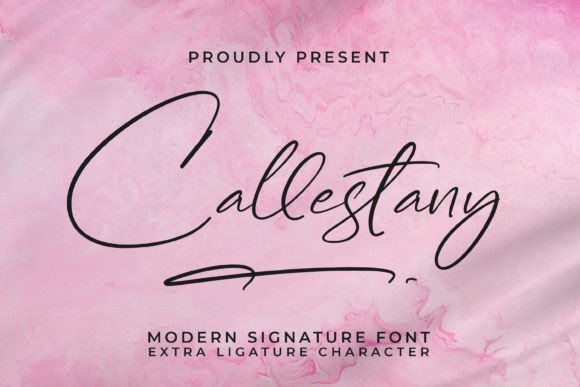
The Ultimate Font for Luxury Projects: A Deep Dive into Callestany Font
Have you ever been in the middle of a design project, and suddenly, you just can’t seem to find the perfect font? I recall working on a branding project for a high-end fashion label, and the font I was using just wasn’t cutting it. The client wanted something luxurious, elegant, and sophisticated. That’s when I stumbled upon Callestany Font. In this article, we’ll explore what makes Callestany a go-to font for designers, crafters, and creative hobbyists.
An Honest Review of Callestany Font
What I Love About Callestany Font
- ✨ Modern and sleek design: Callestany Font boasts a modern signature style that’s perfect for luxury projects.
- ✅ Highly versatile: From logos and branding projects to homewares designs, product packaging, and more, Callestany Font is an excellent choice.
- 💫 Elegant and sophisticated: This font exudes elegance and sophistication, making it ideal for high-end projects.
While Callestany Font is an excellent choice, there are a few things to keep in mind:
- 🤔 Limited use in body text: Due to its elegant and cursive nature, Callestany Font might not be the best choice for lengthy body text.
- ⚠️ Requires attention to spacing: As with any font, it’s essential to pay attention to spacing to ensure the text looks balanced and visually appealing.
- Take advantage of stylistic alternates and glyphs to add more flair to your text.
The Backstory Behind Callestany Font
Callestany Font was designed with the intention of creating a modern, elegant script font that would cater to the needs of designers and crafters. The designer aimed to create a font that would be both luxurious and versatile, perfect for a wide range of projects.
| Font Name | Callestany Font |
| Author | integritypestudio |
Q: What type of projects is Callestany Font best suited for?
A: Callestany Font is perfect for luxury projects such as logos, branding projects, homewares designs, product packaging, and more.
Q: Is Callestany Font suitable for body text?
A: While Callestany Font is an excellent choice for headings and titles, it might not be the best choice for lengthy body text due to its elegant and cursive nature.